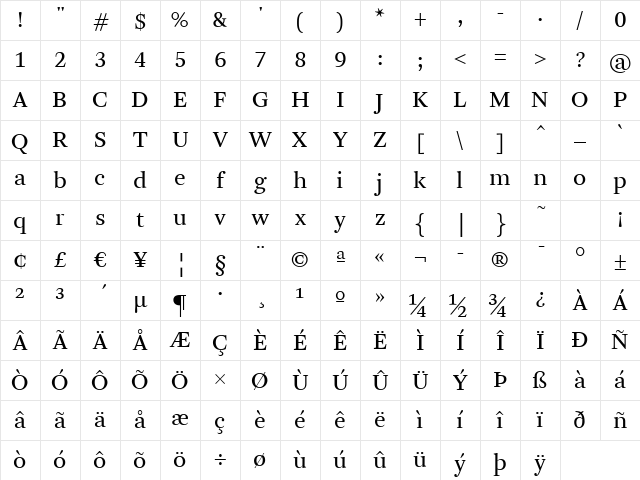
ArnhemLF-Blond Regular
Design Context for ArnhemLF-Blond
ArnhemLF-Blond is a composed and adaptable typeface that performs quietly and consistently across a wide range of design contexts.